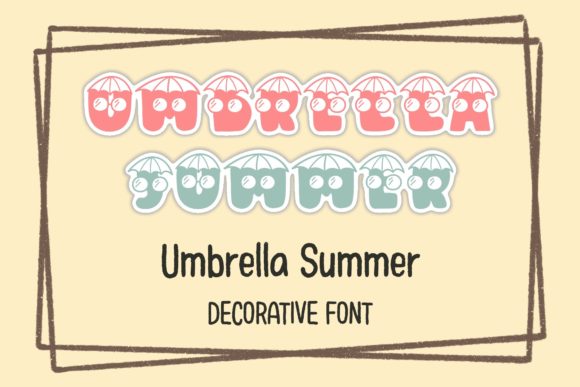
The Umbrella Summer Font is the perfect way to add a touch of fun and creativity to your next project. This decorative font is perfect for logos, branding, social media, and much more. It's also the best font for small screens, making it perfect for your website or mobile app.
The Umbrella Summer Font is a unique and original font that is sure to make your projects stand out from the crowd. It's a cool and refreshing font that will add a touch of summer to your designs.
If you're looking for a font that is both stylish and functional, the Umbrella Summer Font is the perfect choice. It's a versatile font that can be used for a variety of projects, and it's sure to make your designs look amazing.
* It's a unique and original font that is sure to make your projects stand out from the crowd.
* It's a cool and refreshing font that will add a touch of summer to your designs.
* It's a versatile font that can be used for a variety of projects, including logos, branding, social media, and more.
* It's the best font for small screens, making it perfect for your website or mobile app.